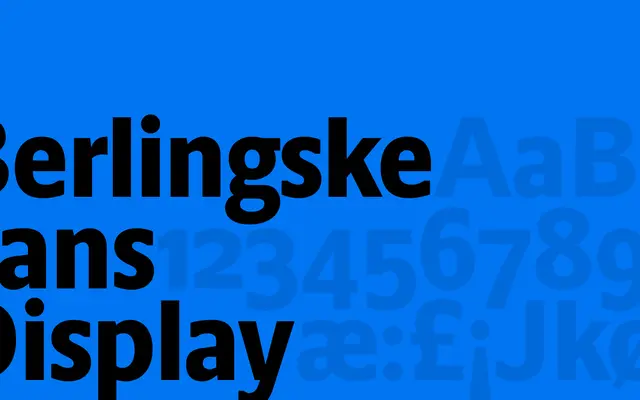
Berlingske Sans Display
A display-specific cut of the Berlingske Sans family, designed for large-scale editorial and headline use.
Part of the broader Berlingske type system developed by Playtype, this display variant is optimised for headlines and large settings rather than text. The family takes its name from the Danish newspaper Berlingske, suggesting roots in editorial and press typography. It suits publication design, cultural institutions and identity work where a considered Scandinavian sans is needed at display scale.
Named as a display variant of the Berlingske Sans family, intended for large-scale headline use rather than continuous text setting.